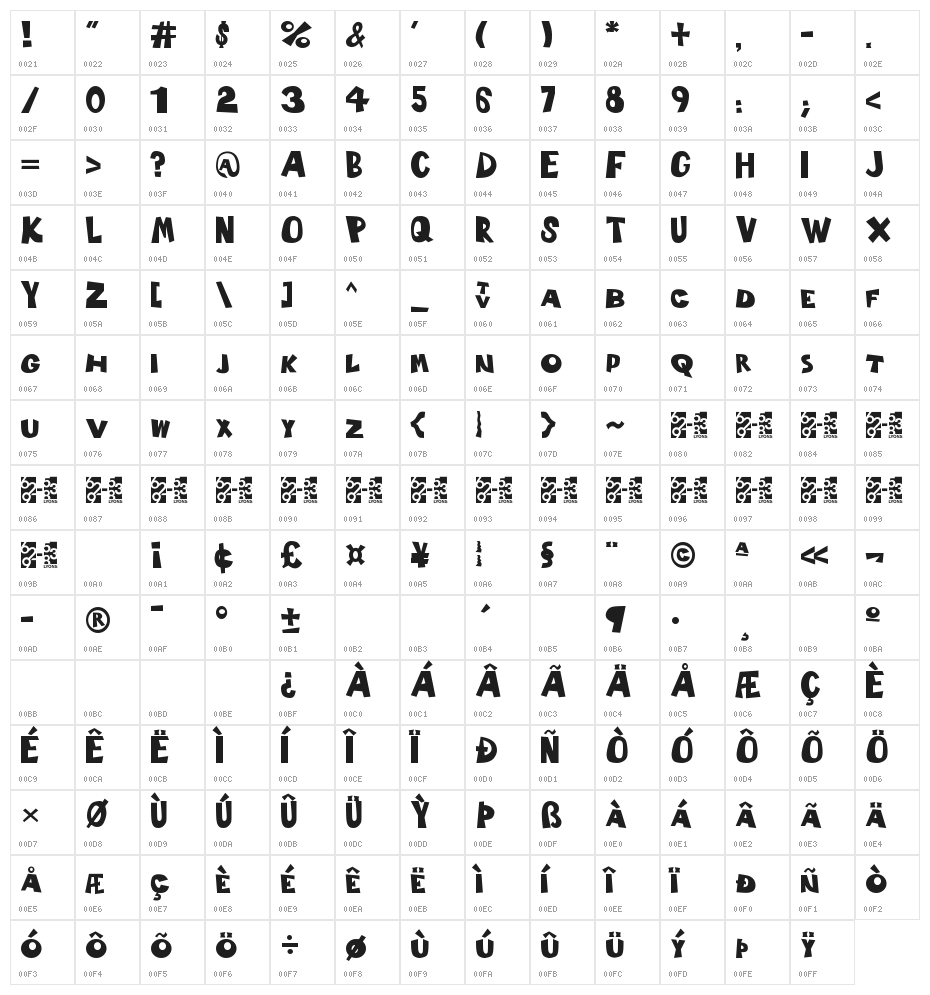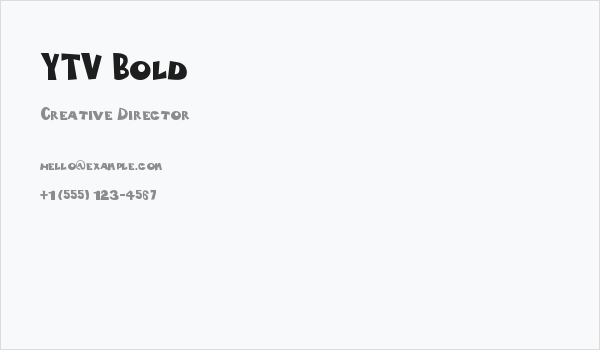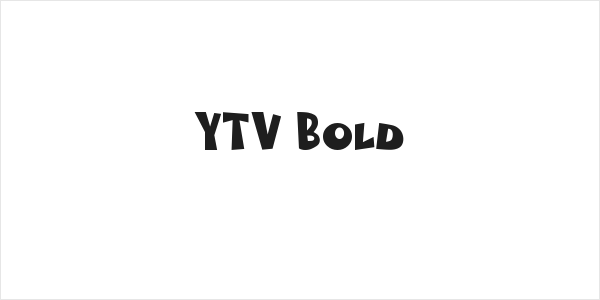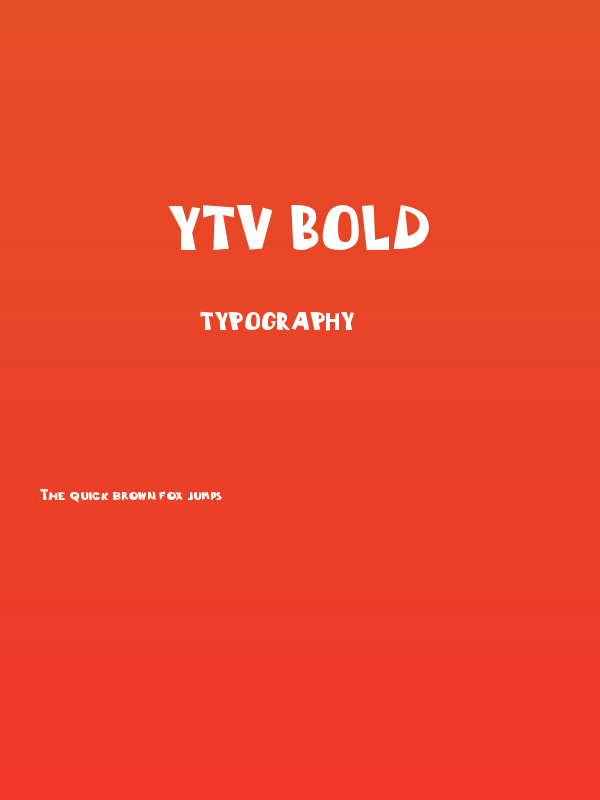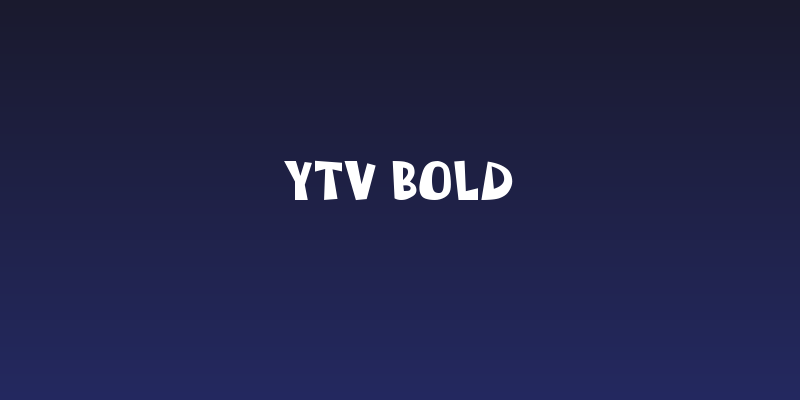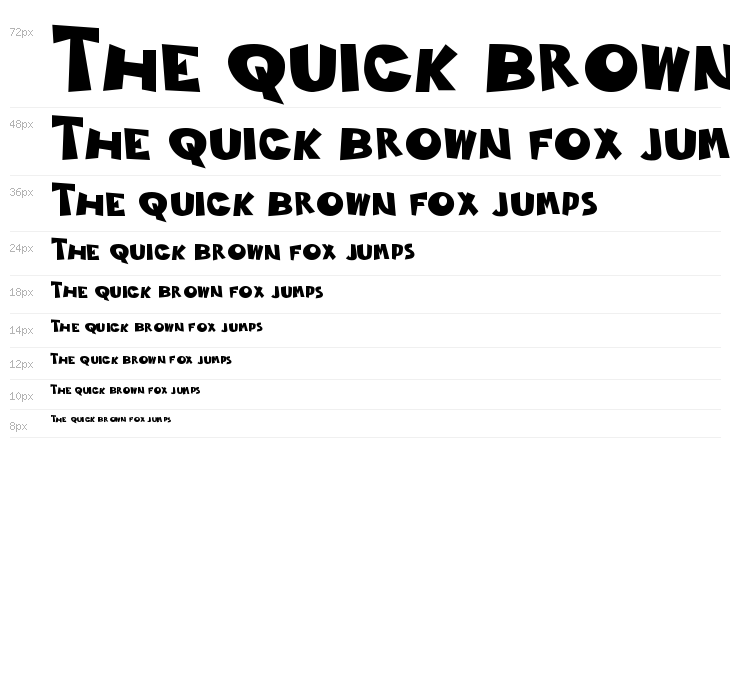
YTV Bold Font
YTV Bold Description
This bold, playful font features exaggerated, irregular shapes with a whimsical and dynamic appearance. The uppercase letters are particularly striking, with each character having a unique flair that adds to the overall lively feel. The numbers and special characters maintain this energetic style, making the font suitable for eye-catching designs. The boldness of the strokes gives it a strong presence, while the irregularity adds a sense of fun and creativity. It's a font that stands out and captures attention, perfect for projects that require a bold statement.
Overall StylePlayful, Whimsical
Proposed ProjectsIdeal for children's books, playful branding, party invitations, and creative posters.